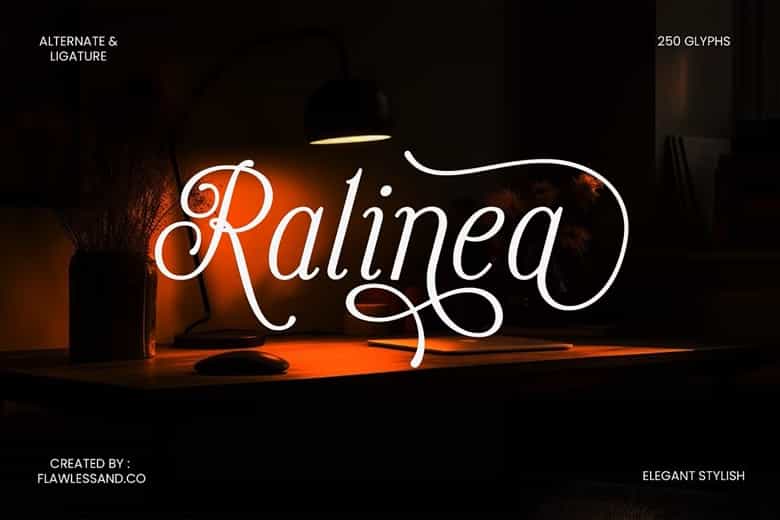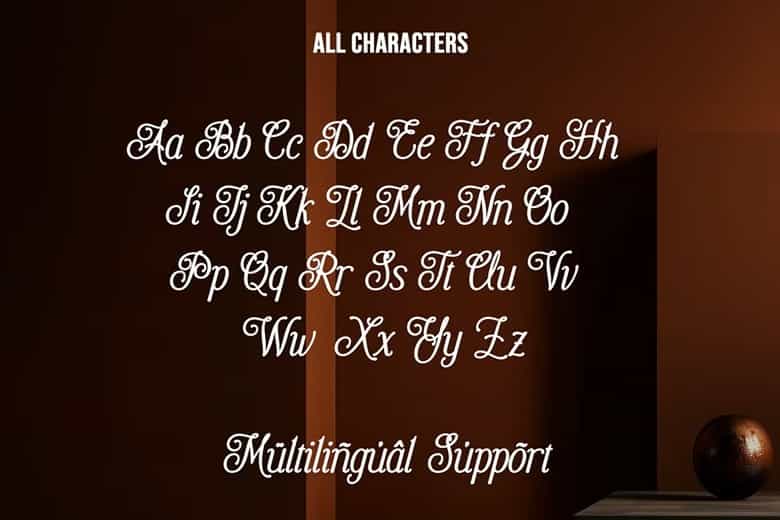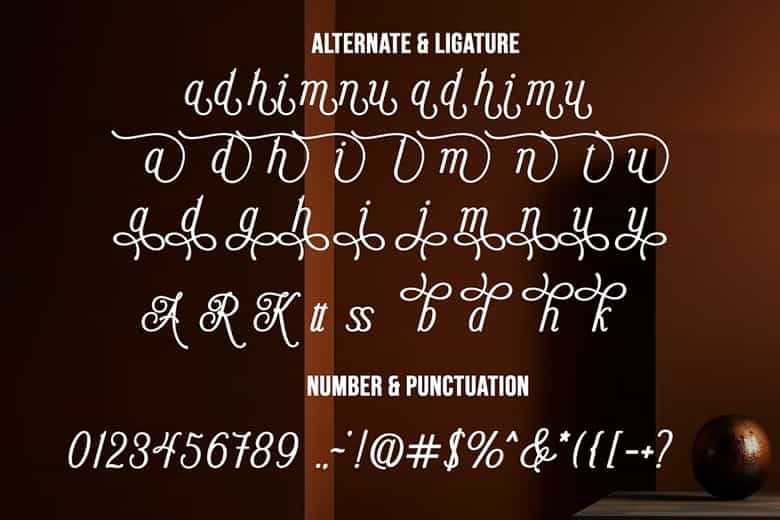
Ralinea is a calligraphy script typeface that looks elegant and straight, which might be inferred from its name meaning that it is lined. This font has fine lines and rounded corners which serve to make it classy and sleek for use in the creation of any form of formal event invitations, business logos and designs for product packaging, and graphic designs for the various social media platform. Ralinea is a typeface that imparts class to any project that it is used in.